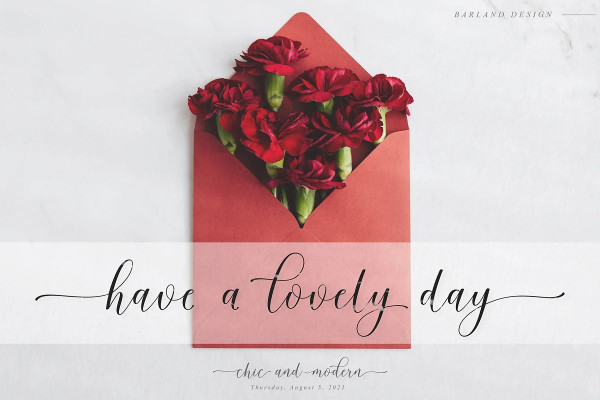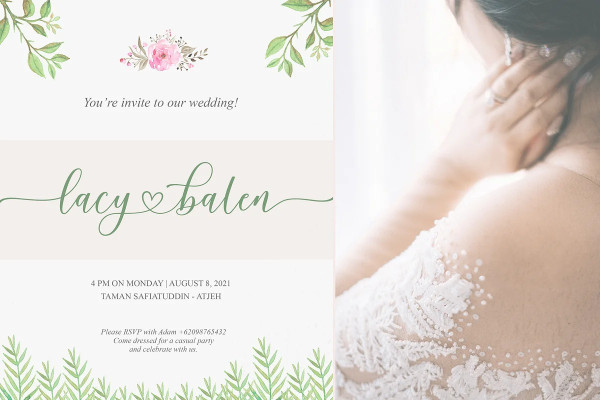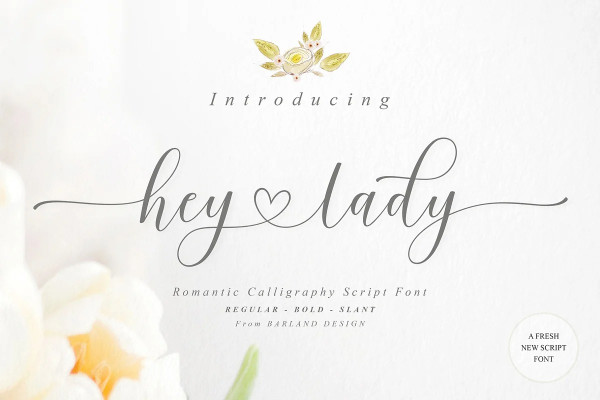
Hey Lady Font
Hey Lady Font is a unique blend of classic and modern font. imperfect style ups and downs, like a dance letters, smooth, clean and simple. This font perfect for wedding, event, invitation, escort card, display, logos, slider blog, custom address, stamps, packaging, greeting card, etc.